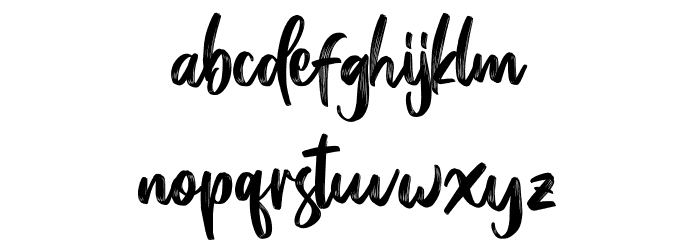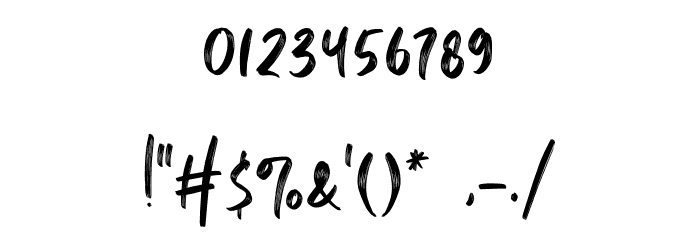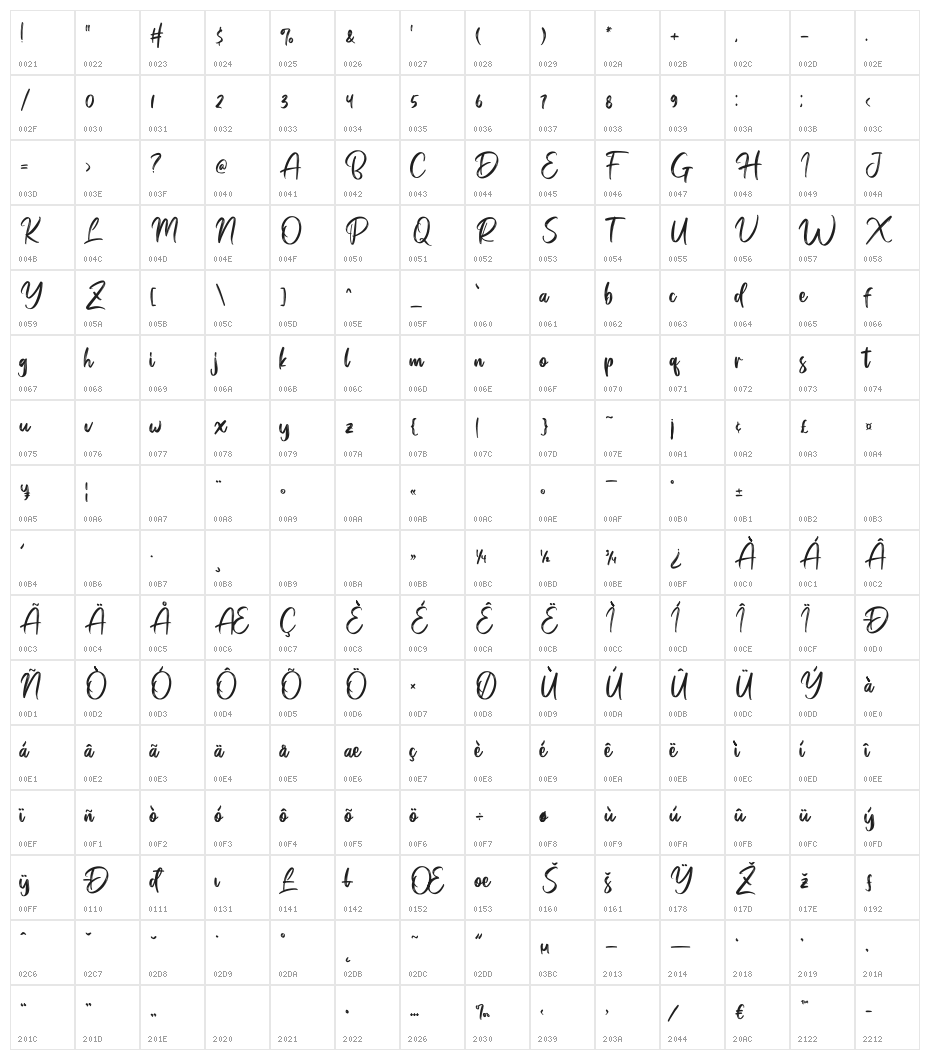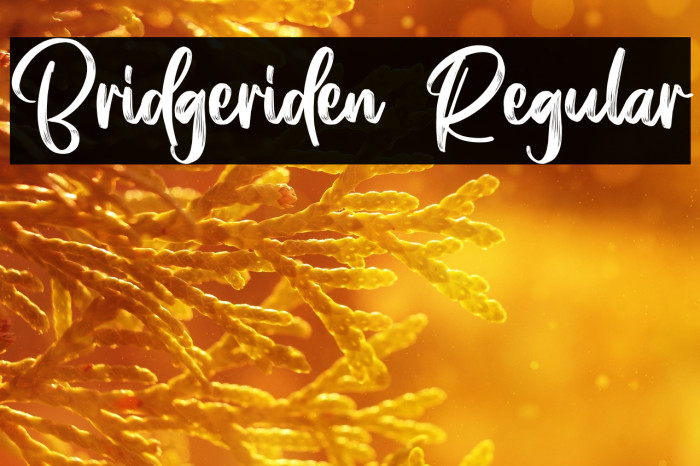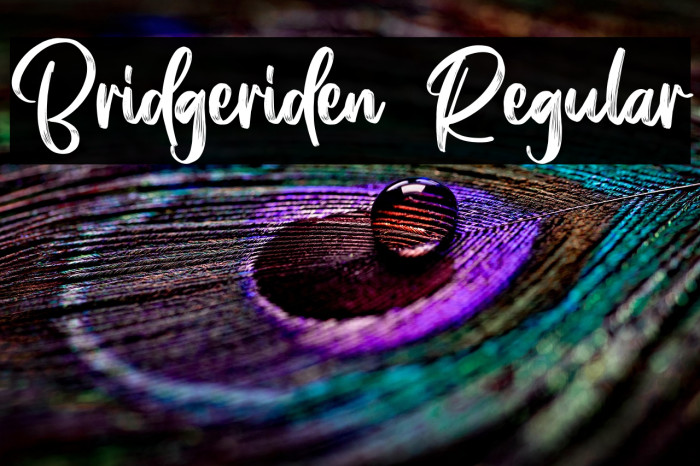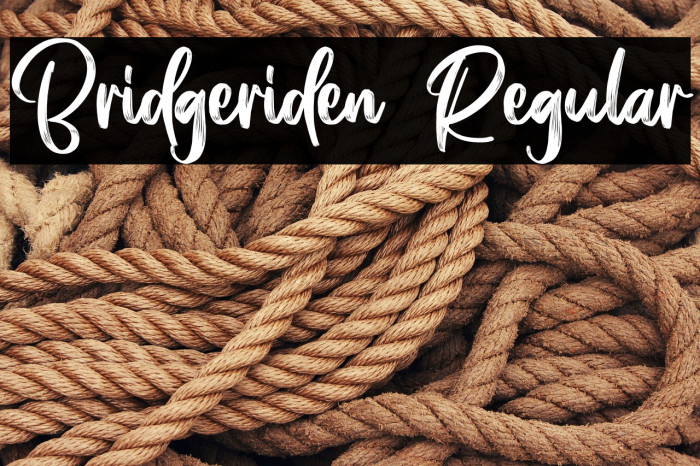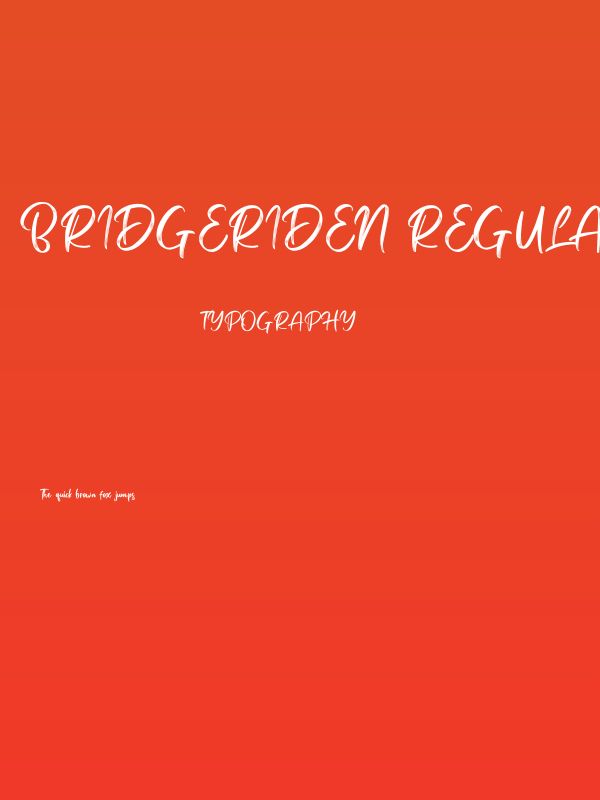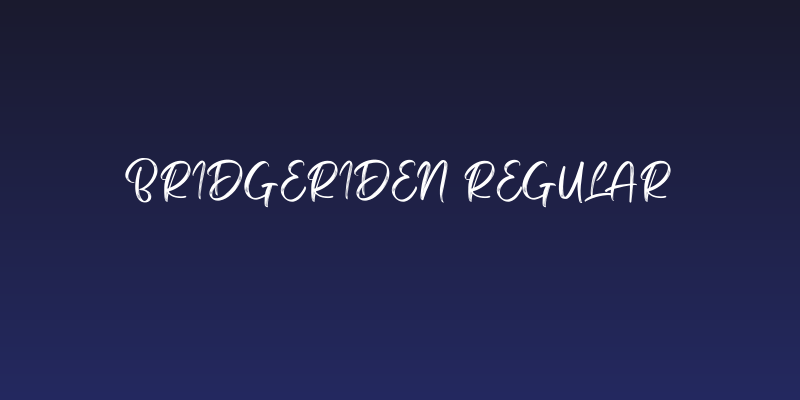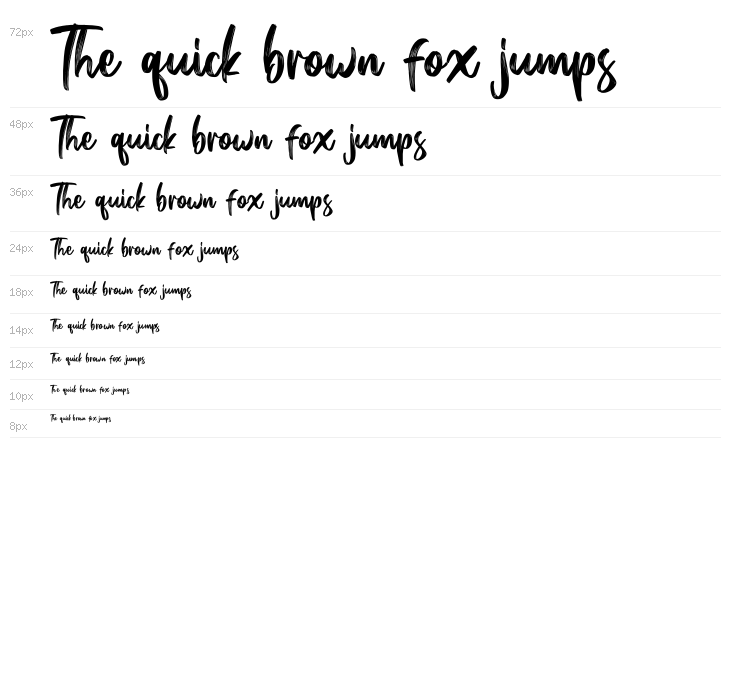
Bridgeriden Regular Font
This font features a dynamic and expressive handwritten style, characterized by its fluid and flowing letterforms. The strokes are bold and slightly irregular, giving it a natural and organic feel. The uppercase letters are tall and elegant, while the lowercase letters maintain a consistent rhythm with playful loops and curves. The numerals are clear and legible, complementing the overall aesthetic. Special characters are thoughtfully designed to match the energetic style of the alphabet. This font exudes a sense of creativity and spontaneity, making it ideal for projects that require a personal touch.
A bold, expressive handwritten font with fluid and dynamic strokes.
- Proposed Projects: Ideal for branding, invitations, greeting cards, and artistic projects that require a personal and creative touch.
- Use Case: Logos, Headlines, Artistic projects